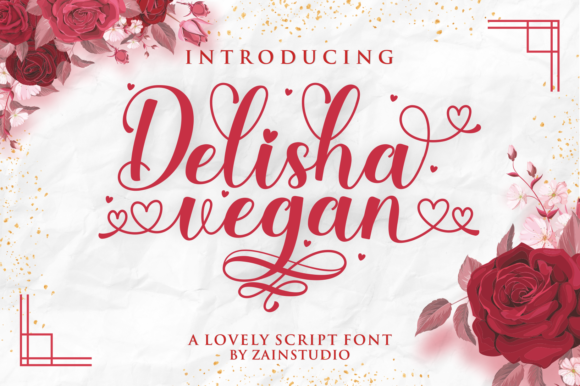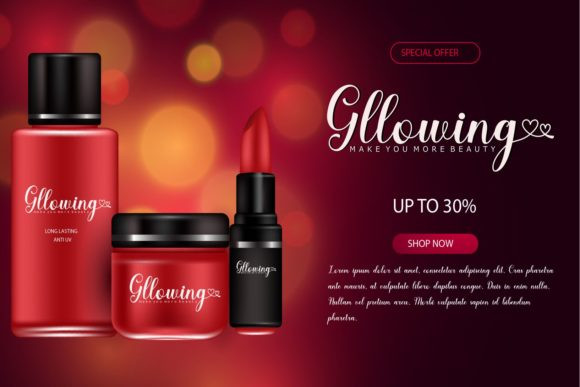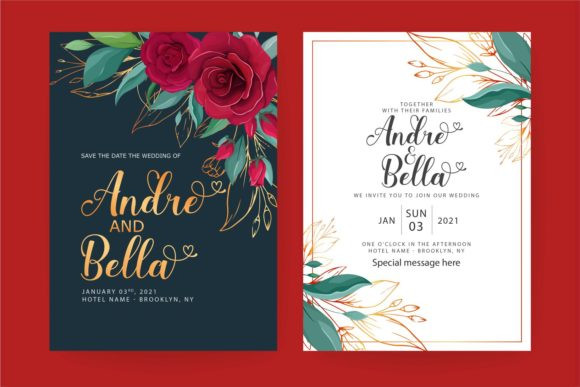
Delisha Vegan Font
Delisha Vegan is a modern calligraphy font with special heart characters. Fall in love with its authentic feel and use it to create gorgeous wedding invitations, beautiful stationary art, and cute greeting cards.
This font is PUA encoded which means you can access all of the stunning glyphs and swashes with ease! It also features a wealth of special features including alternate glyphs and ligatures.